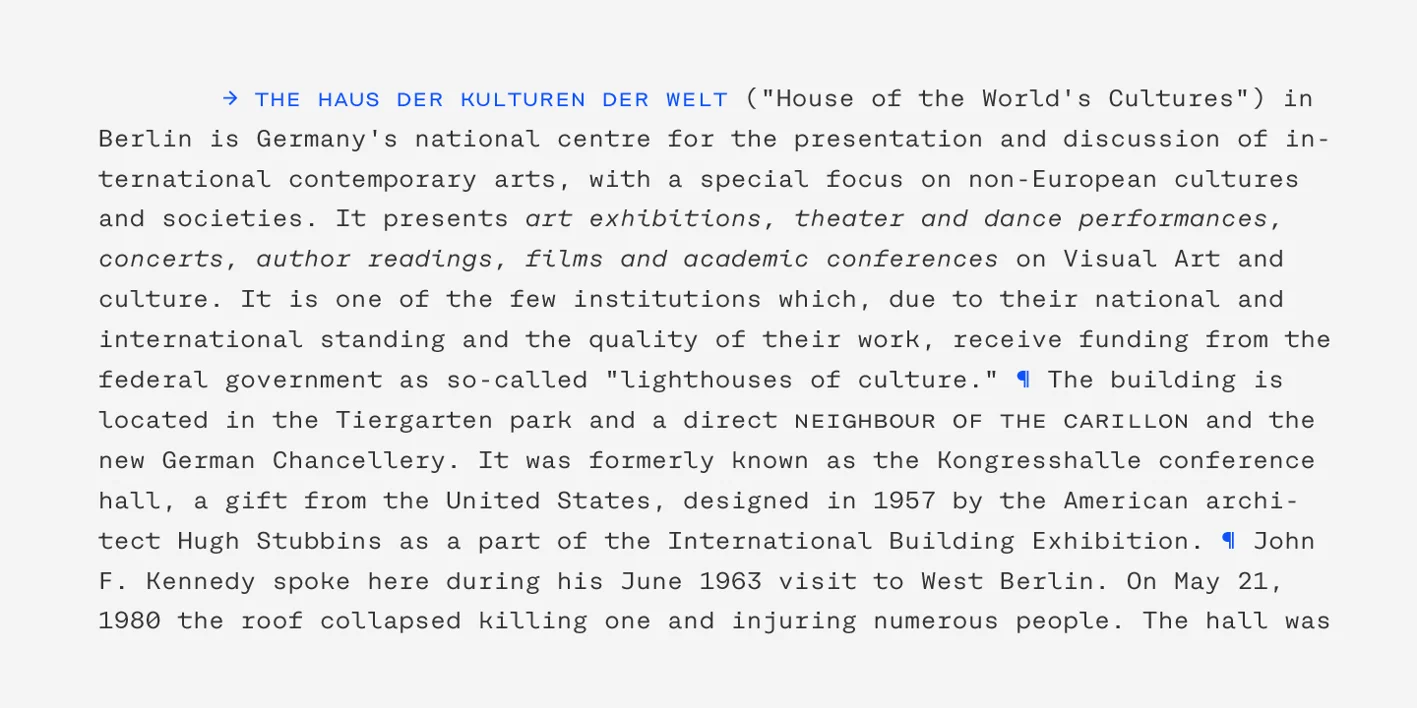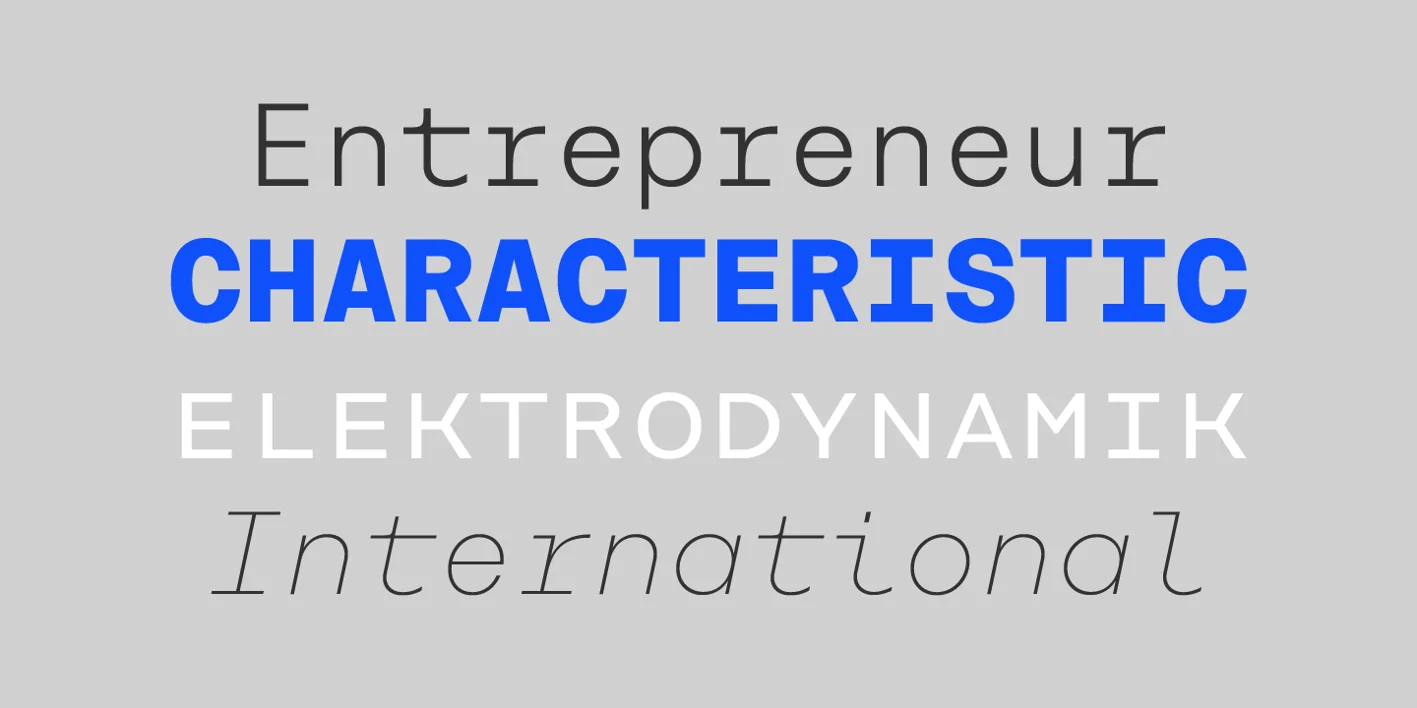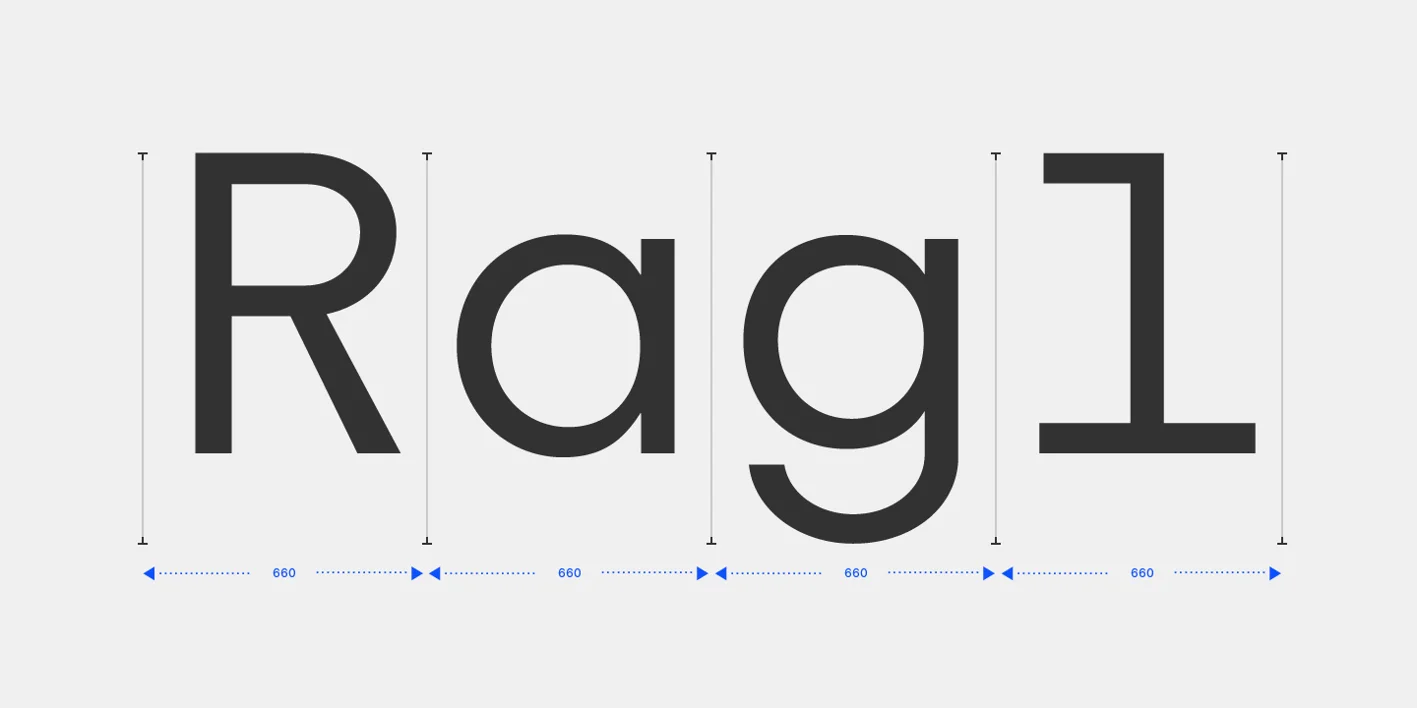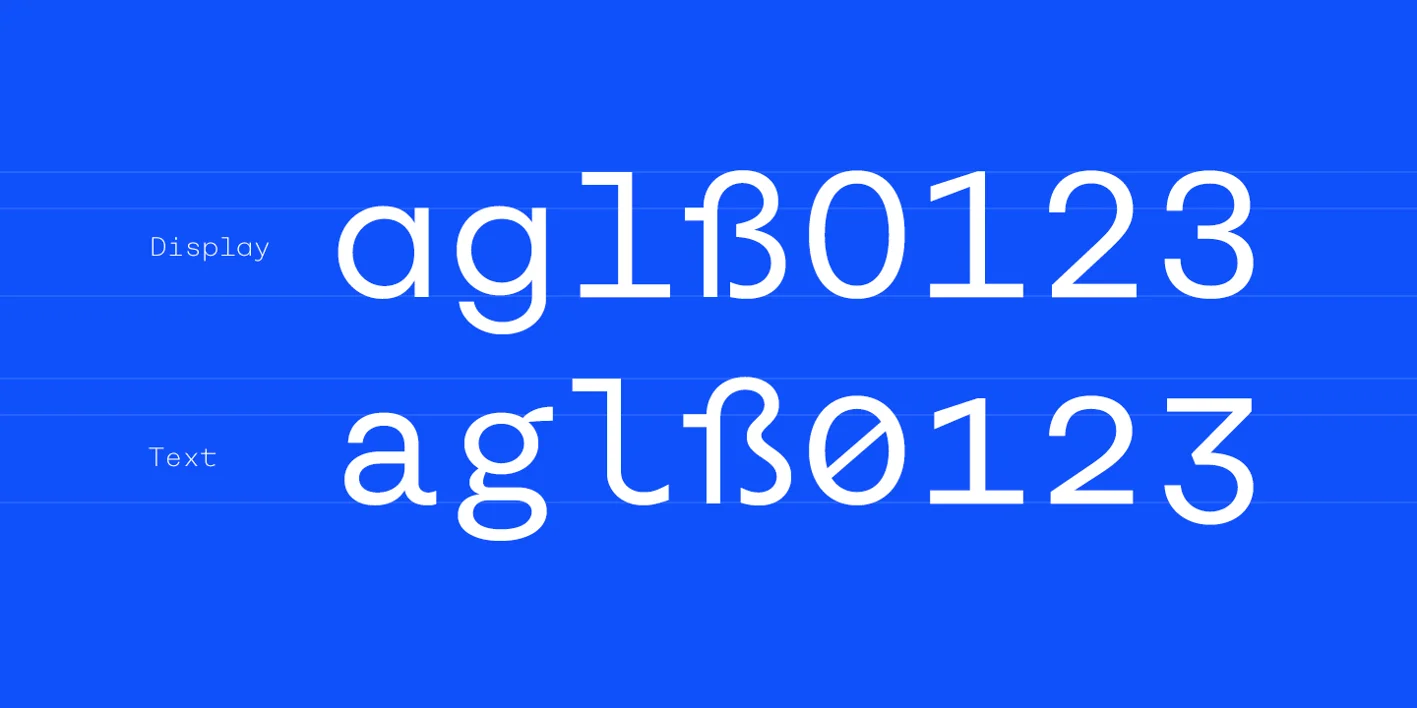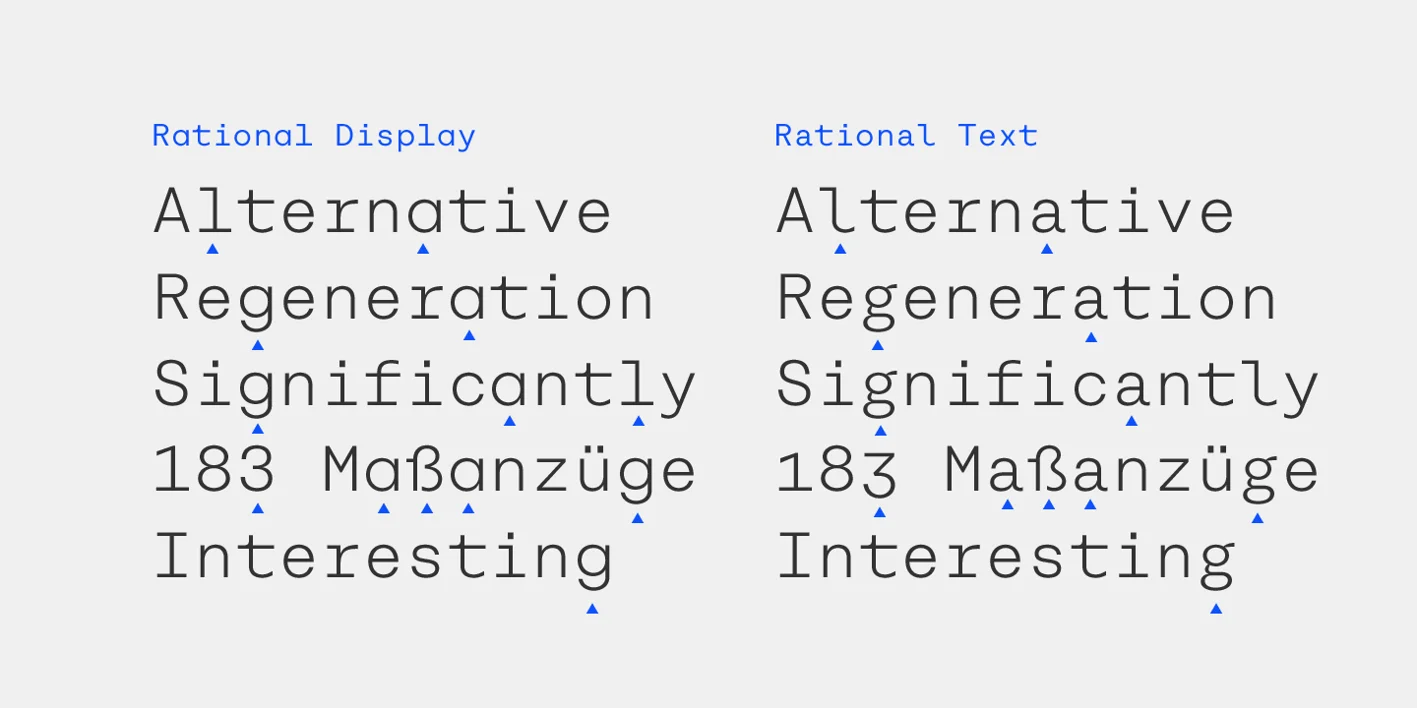
Rational TW Free Font
Rational TW Free brings a confident, polished presence to any design, from business materials to creative campaigns.
The font excels in creative briefs that call for strong visual identity — from startup branding to editorial design.
Clean terminals, harmonious curves, and precise spacing give the typeface an authoritative yet approachable quality.